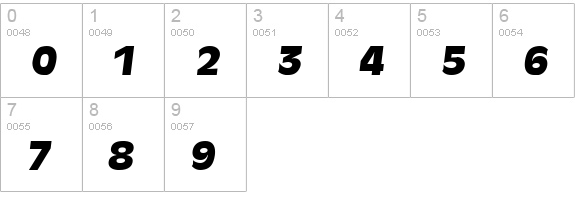
Misce Display SSi Italic Font Details
Misce Display SSi Italic is a distinctive, italic variant in the Misce typeface family \xE2\x80\x94 well suited to design and typography projects.